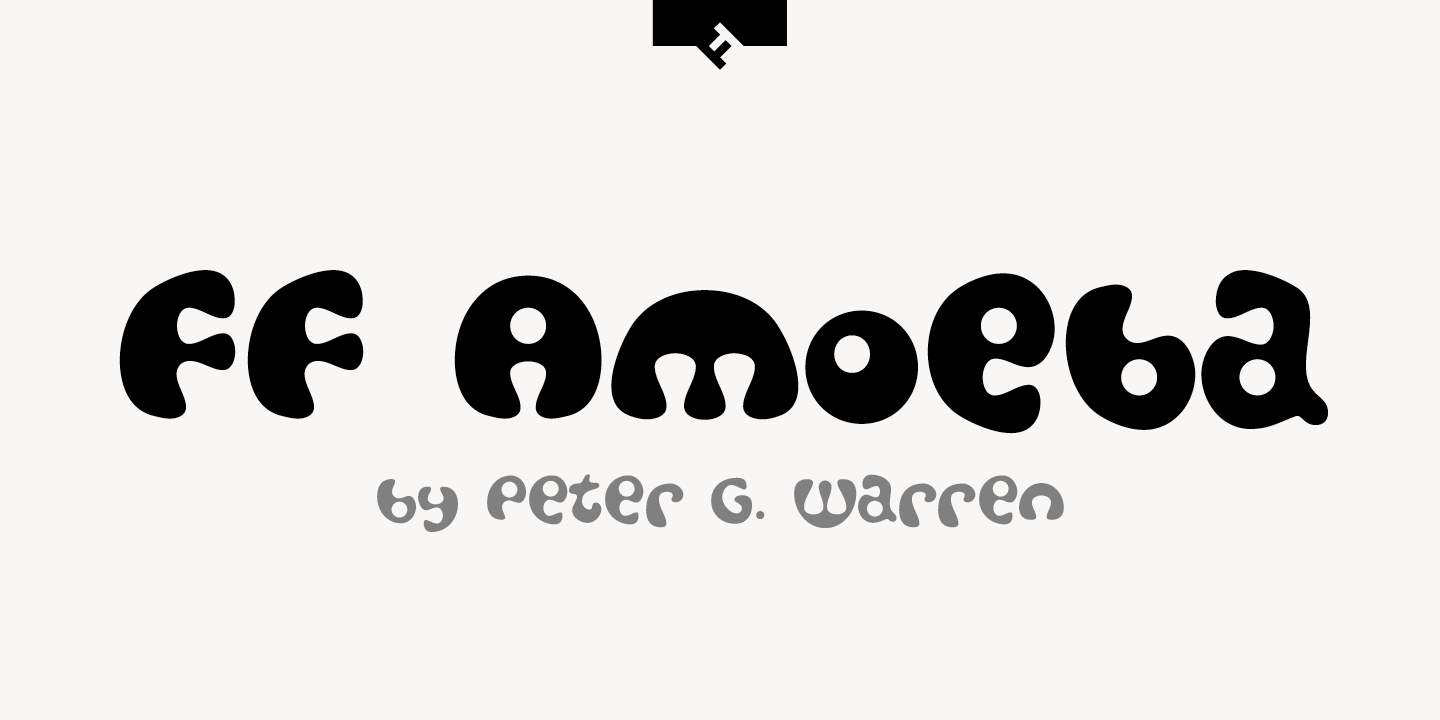
FF Amoeba Font is perfect for organic food branding, biotechnology company logos, environmental science publications, natural health product packaging, microbiology educational materials, liquid design projects, fluid artistic expressions, and innovative scientific communications.
What makes FF Amoeba Font exciting is its fascinating organic fluidity that captures the mesmerizing movement and adaptive nature of living organisms through typography that flows and transforms like biological life itself. The ingeniously crafted letterforms showcase liquid characteristics with cellular-inspired curves that evoke memories of microscopic worlds, flowing water, and the endless adaptability that defines all living systems. This extraordinary typeface embodies biological innovation, natural evolution, and organic harmony, making it the perfect choice for brands and projects that celebrate the wonder of life sciences and want typography that reflects the dynamic, ever-changing nature of biological processes.
The FF Amoeba Font family includes regular weight with complete uppercase and lowercase character sets, numerals, punctuation marks, and organic decorative elements. The comprehensive glyph collection features fluid alternates, cellular variations, and biological ornaments that enhance the natural aesthetic across all scientific and environmental design applications.
Biotechnology professionals and environmental designers seeking FF Amoeba Font Free Download will find unlimited opportunities for creating memorable, scientifically inspired communications. This exceptional typeface transforms standard scientific text into compelling organic experiences that immediately communicate innovation, natural harmony, and biological sophistication. Whether you're designing biotechnology company materials, creating environmental education resources, developing organic product branding, or crafting scientific research presentations, this font delivers outstanding results that connect audiences with the fascinating complexity and beauty of natural biological systems while inspiring curiosity about life sciences.
The fluidly balanced letter spacing and organic construction make FF Amoeba Font highly effective across both detailed scientific publication applications and larger environmental campaign displays. Its cellular character ensures seamless integration into bio-focused projects while maintaining excellent readability for scientific communication needs. From laboratory signage to environmental awareness campaigns, this font consistently delivers the perfect organic touch that celebrates the wonder of biological life.